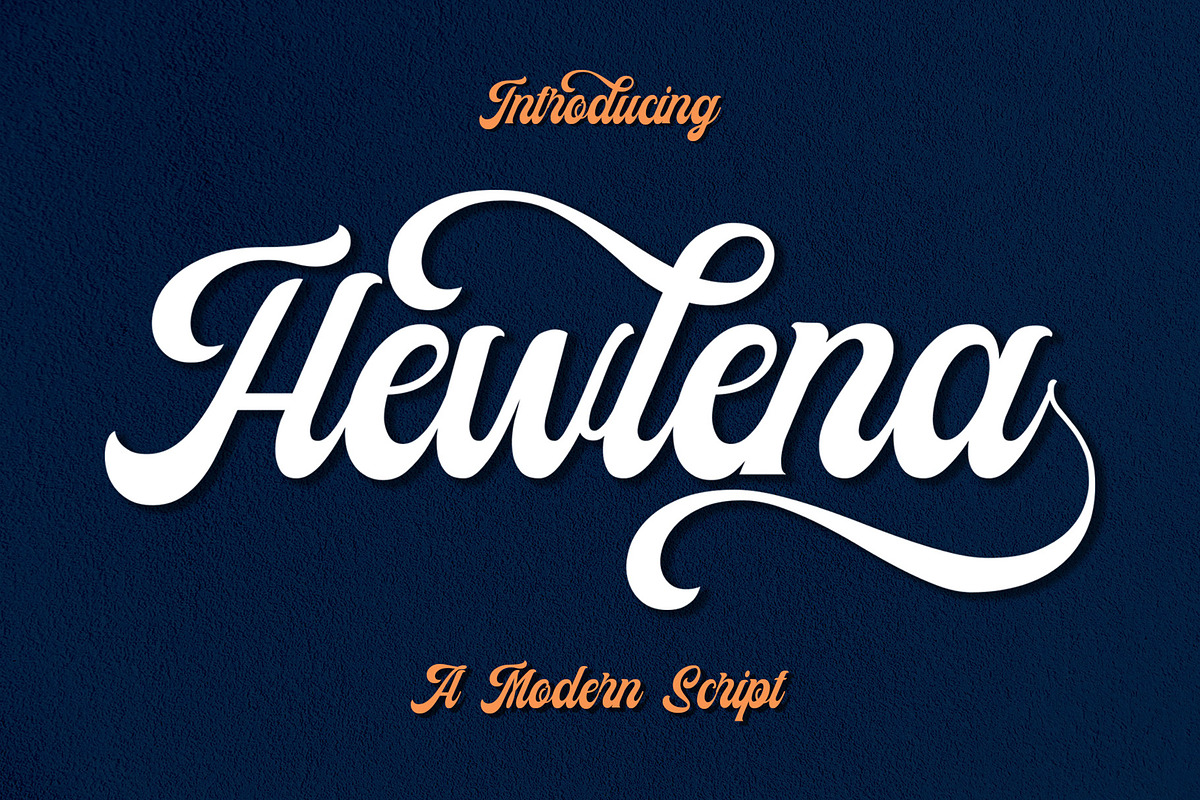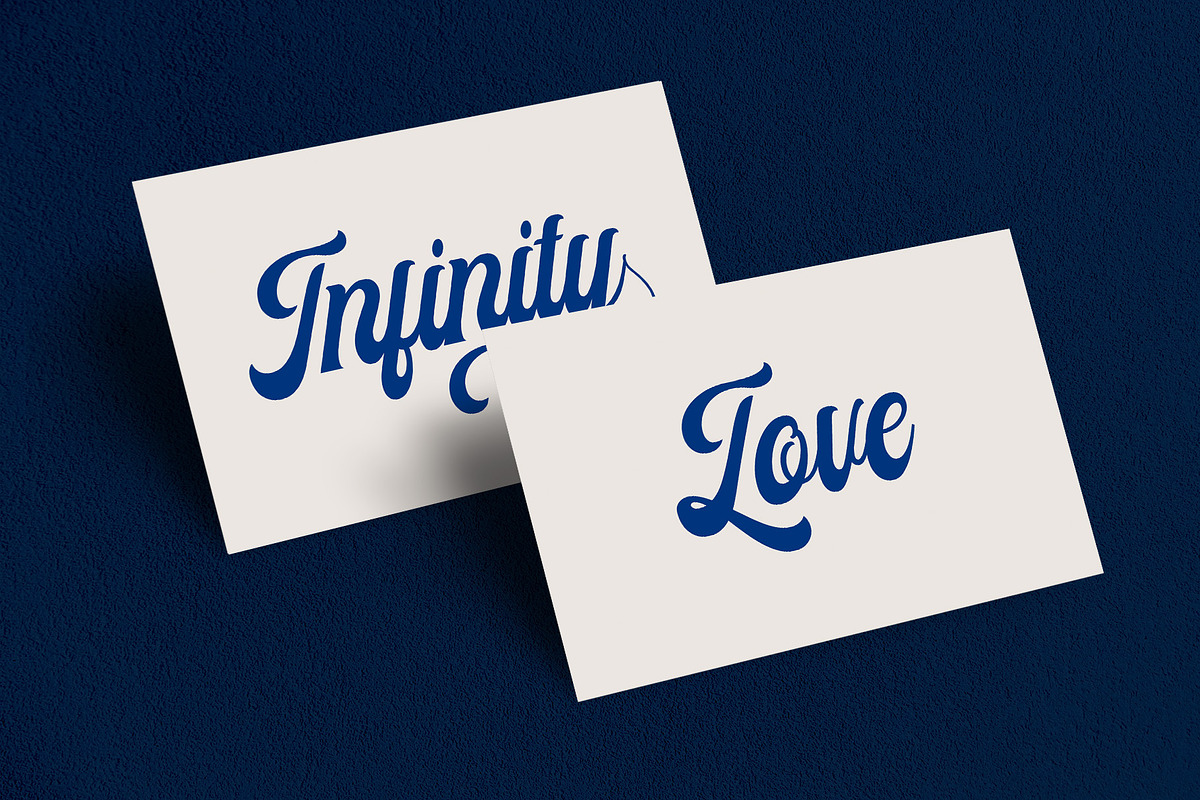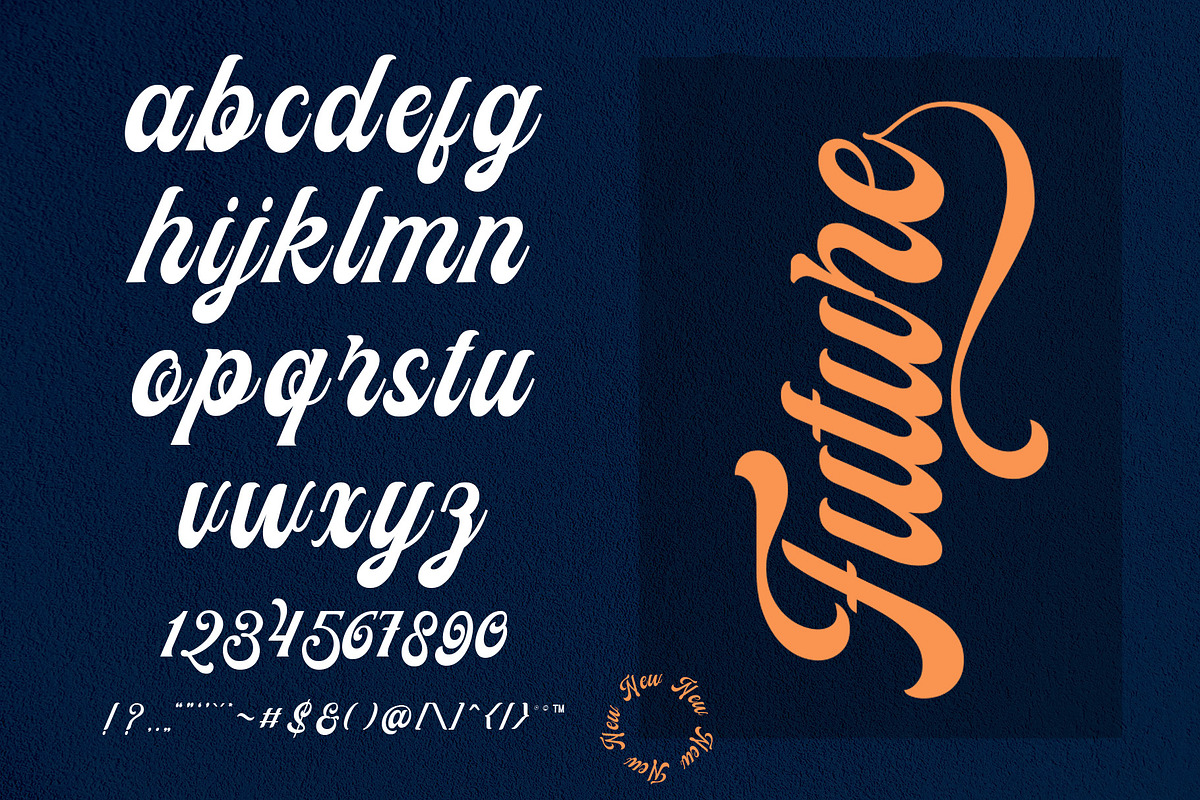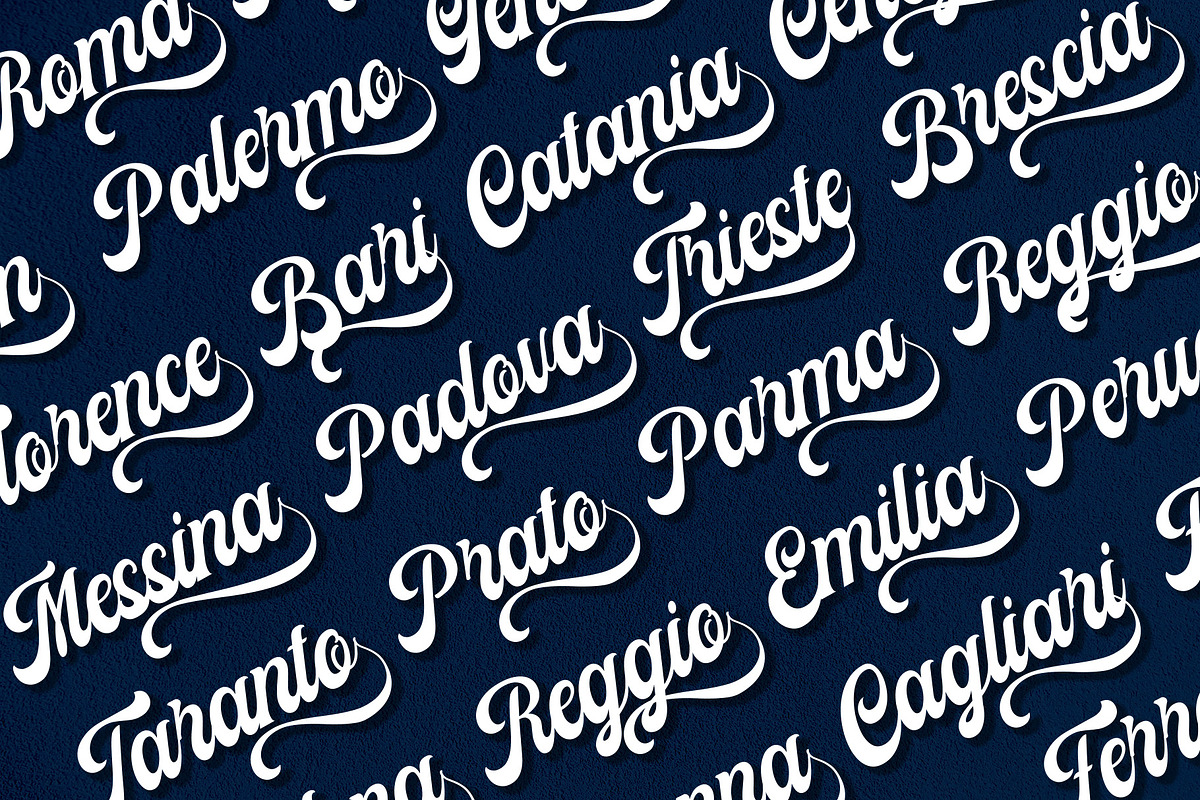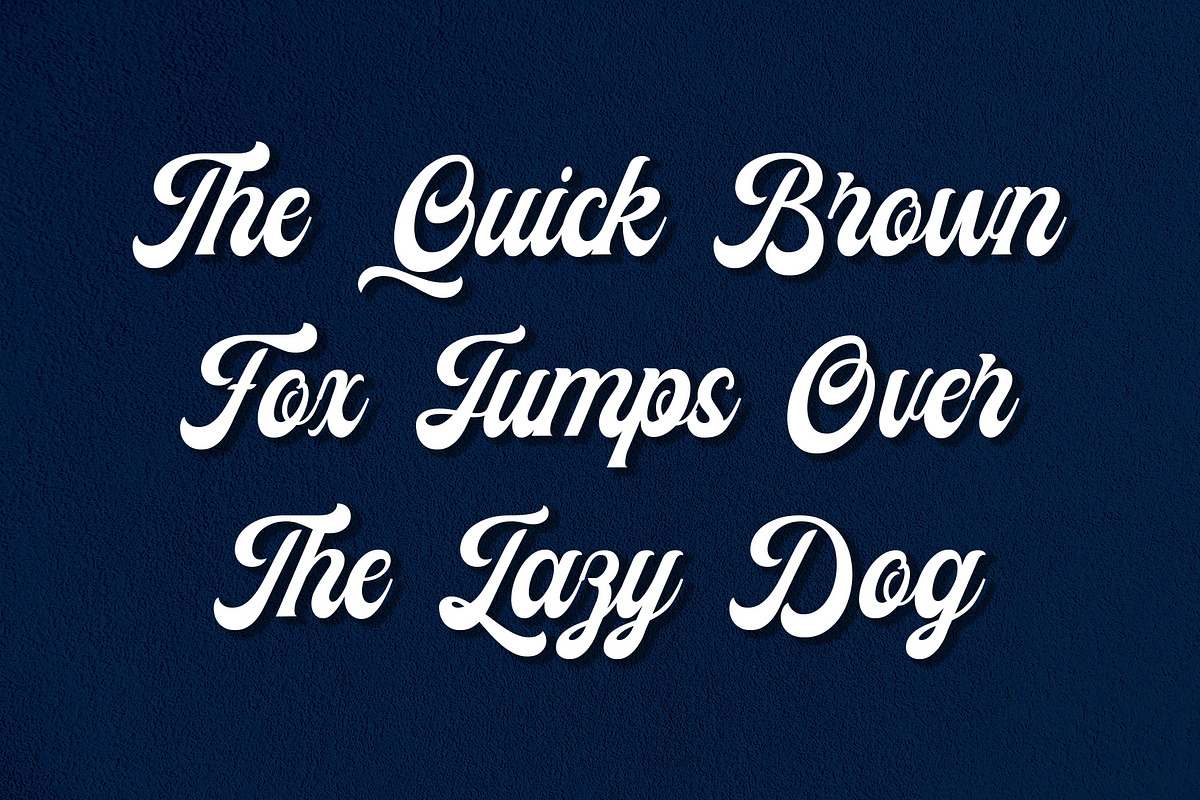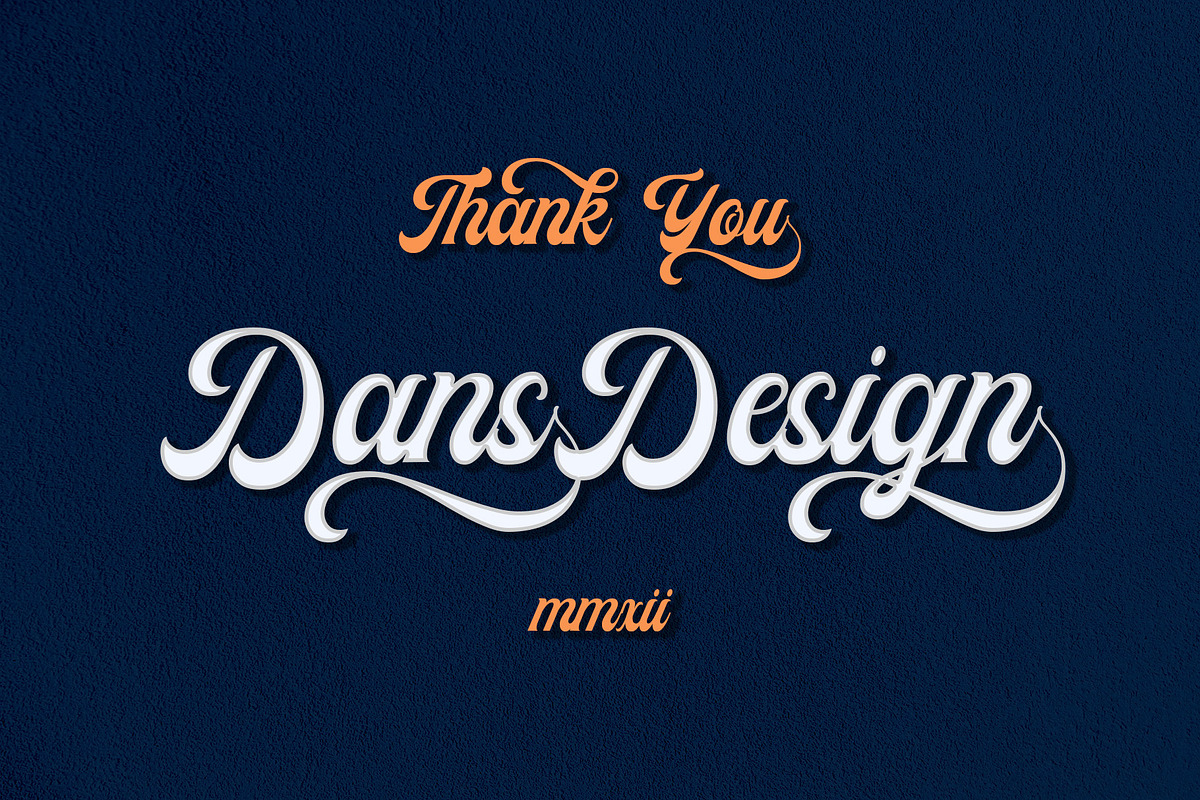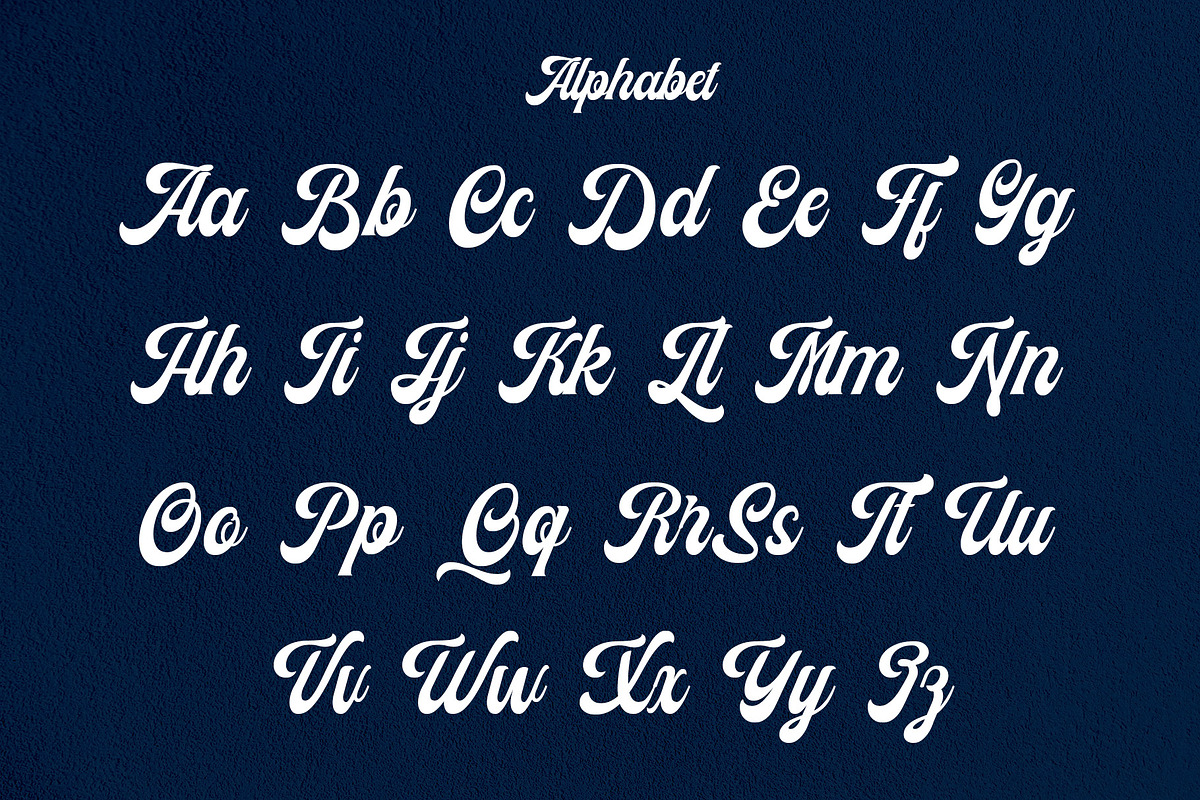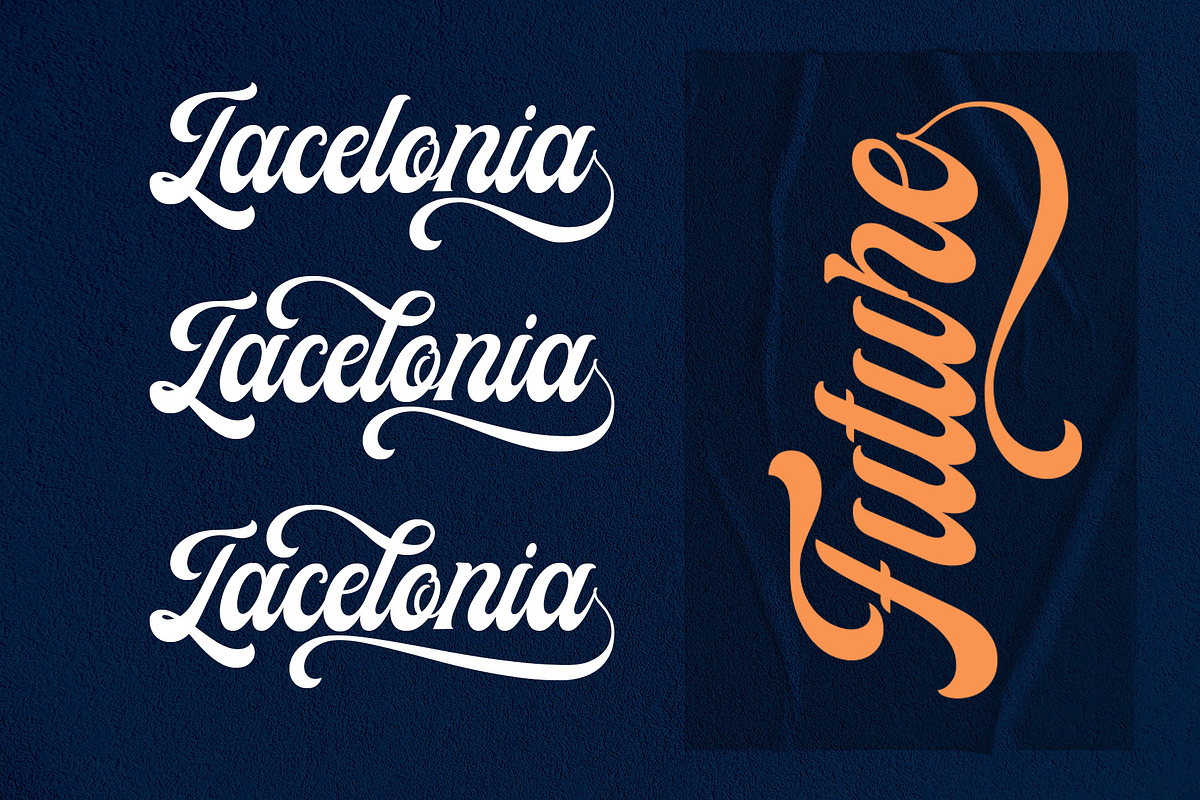
Hewlena
Dansdesign Proudly present Hewlena modern casual script font, This font is made with references to various letters that I combine and design with my style.
Hewlena are great and usefull for product logo, poster title, headline, packaging, badge, wedding card logo, clothing brand logo, Vintage design and much more